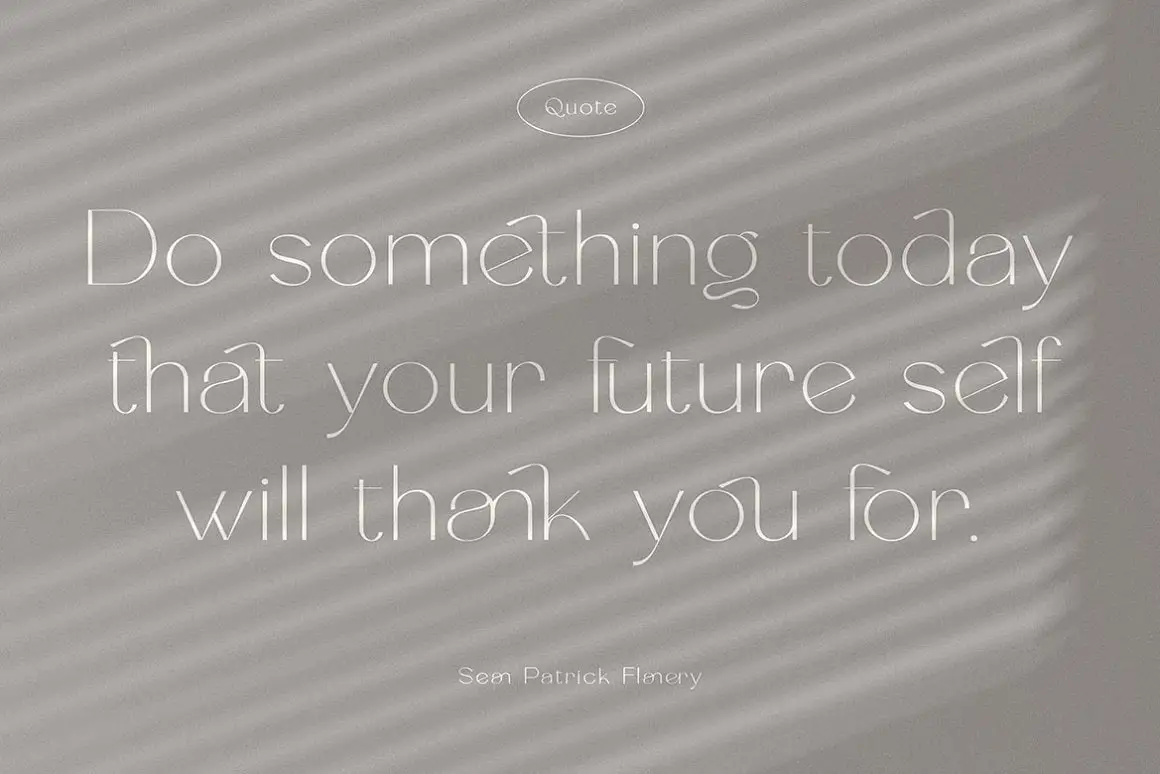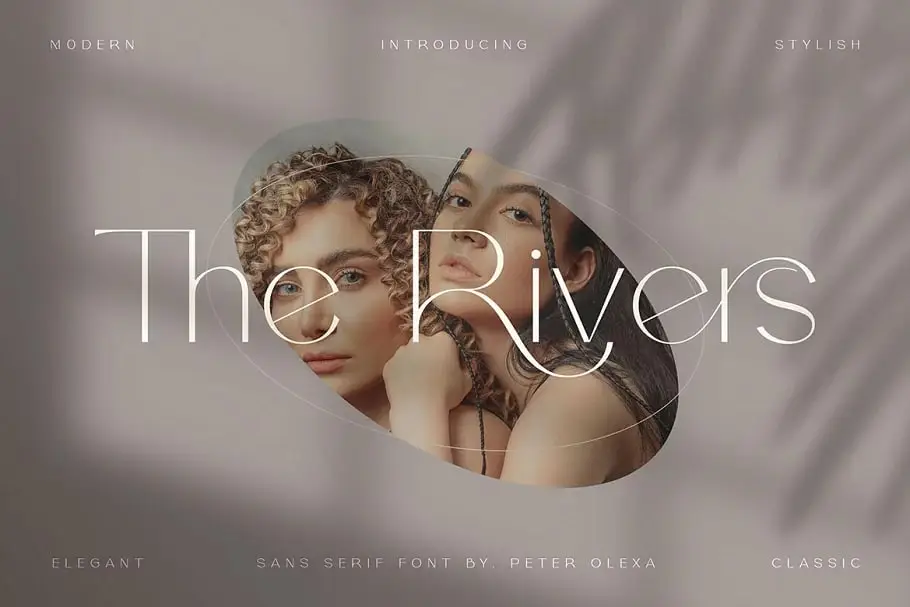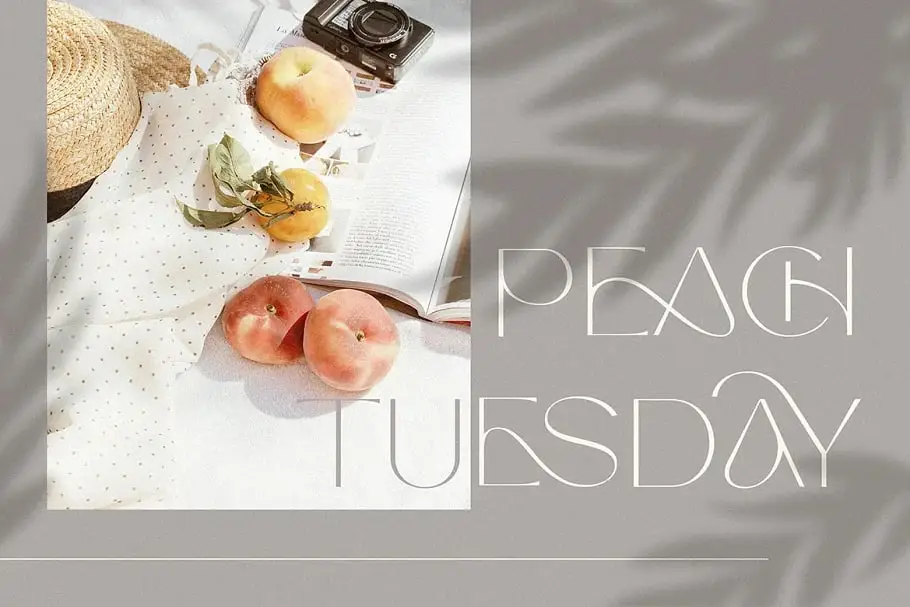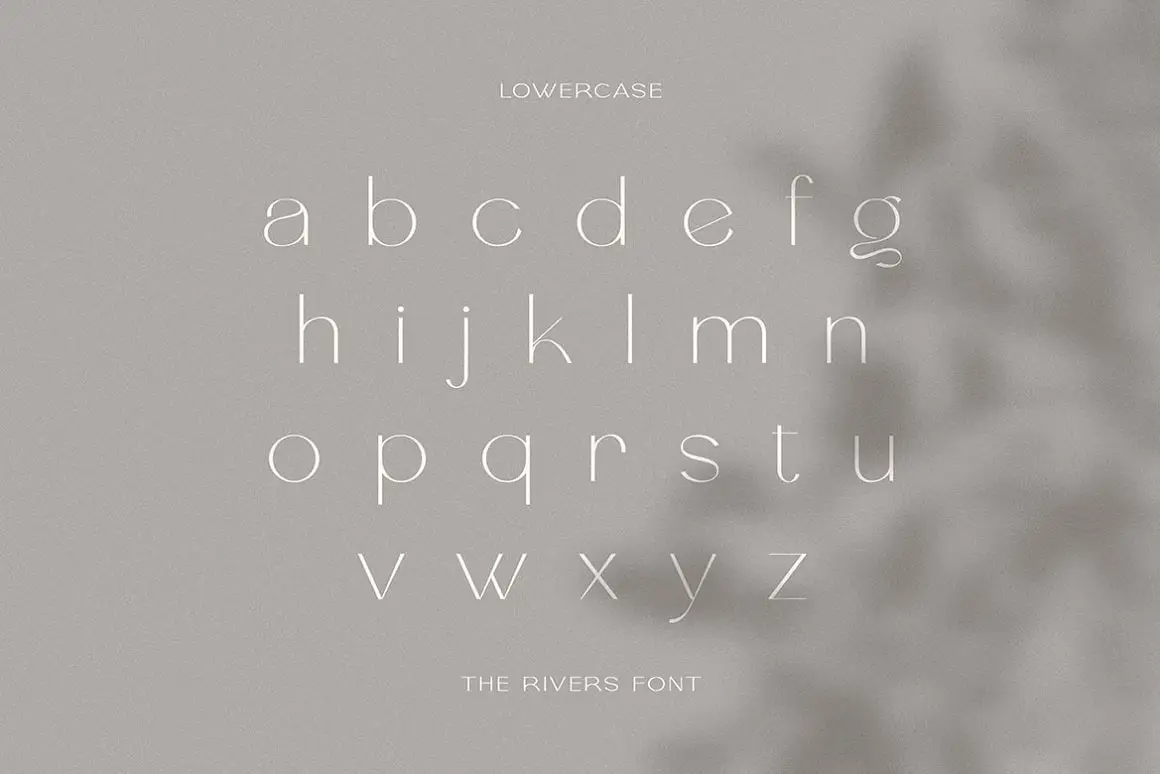
The Rivers-Modern Sans Font
The Rivers is a modern sans-serif font that combines clean lines with a contemporary aesthetic. Perfect for a variety of design projects, this font is versatile and suitable for both digital and print applications.
• Multiple weights for diverse design needs
• Stylish and legible design
• Ideal for branding, logos, and marketing materials
• Great for web design and user interfaces
• Use in print materials like brochures and business cards